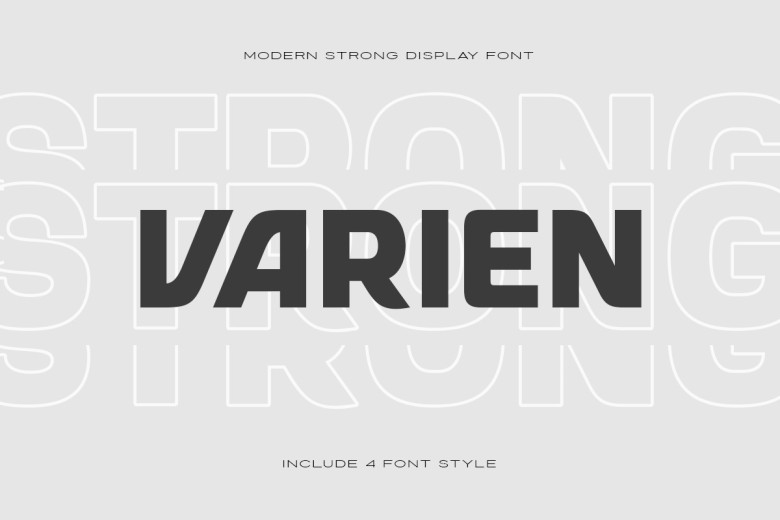
Varien Font
Varien is a blend of futurism and sleekness. It takes on modern technology in its latest incarnation to come even further into prominence. A contemporary aesthetic that is seeking the definitive. With its cool lines, crisp edges, and pointed angles, you can see nothing but progress ahead.
Going forward with all this modernist iconography–emblematic and so hot right now!(Perfect for tech-related designs seeking a contemporary aesthetic. This can be done in both horizontal and vertical modes.)
Varien Display Font